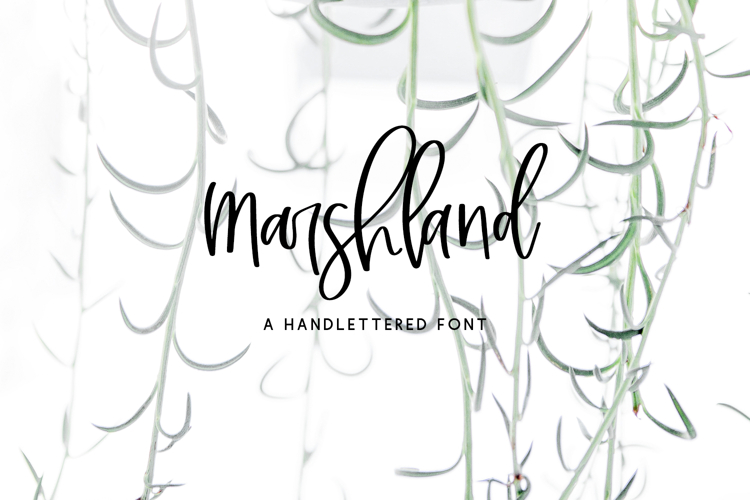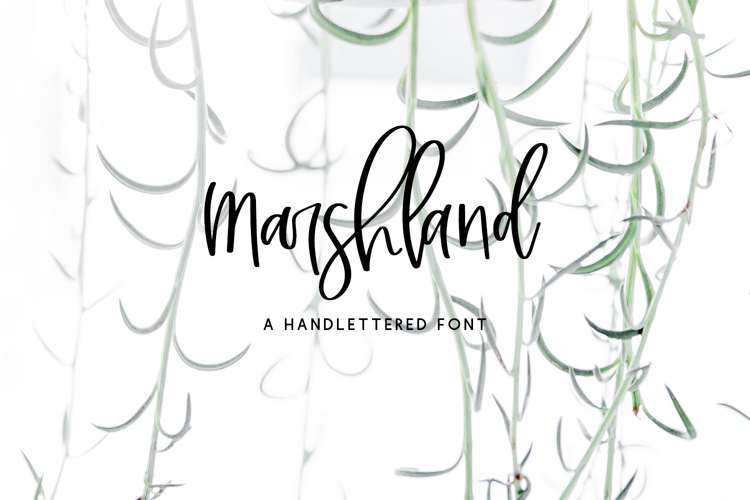
Introducing Marshland, a modern calligraphy script. Marshland is handlettered, and features some extras to customize your text.
Marshland Script is best for:
- website design + website accents - think travel blogs, fashion blogs, & more
Marshland includes:
- 1 alternate character - n
- 12 ligatures - al, ar, el, er, il, ir, ol, or, sh, th, ul ur